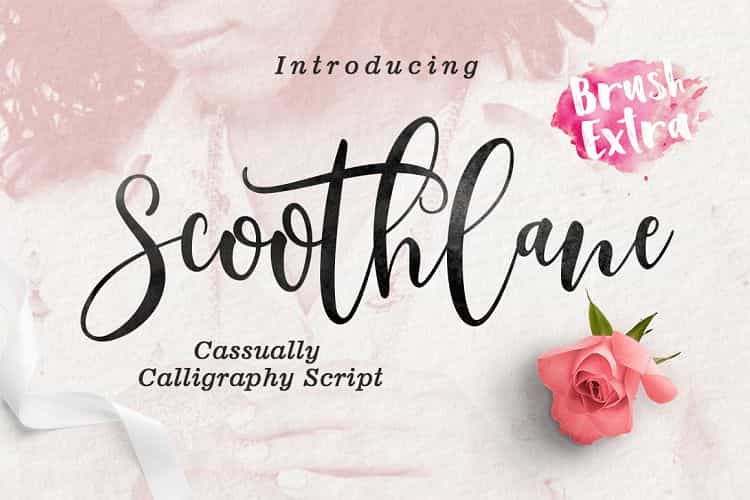
Introducing Scoothlane Font! It was made and it is shared by MERCURIAL. Scoothlane Script Font – a script with the soft letters and funny lines is also full of passion. and has a brush letter that will make you more enthusiastic to apply your great design touch. Scoothlane is a perfect example of how to make a company branding, logo design, magazine layout or homeware look fresh and unique. It can be used for creating greetings, prints and invitations as well.